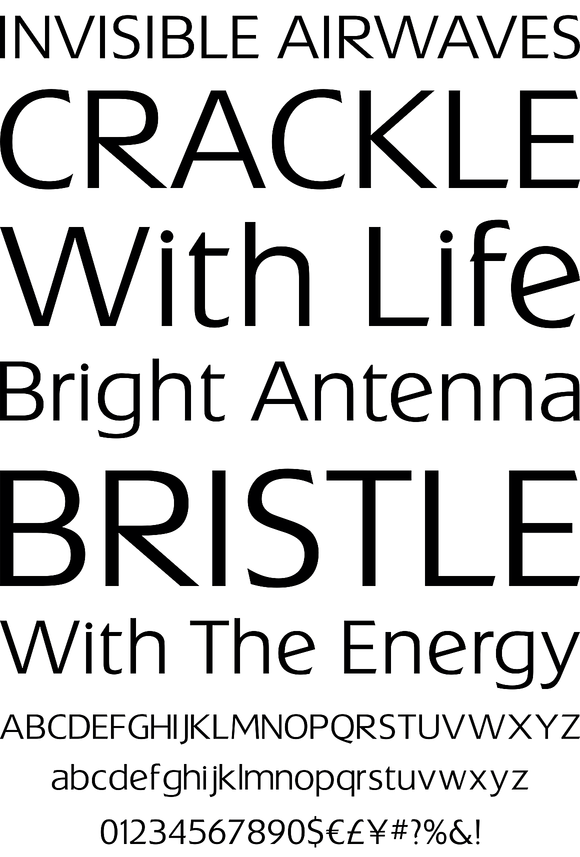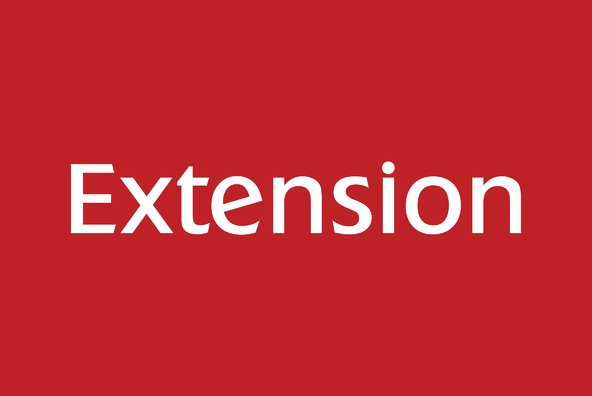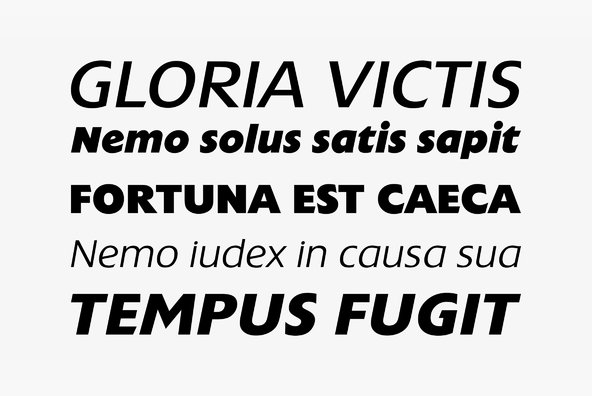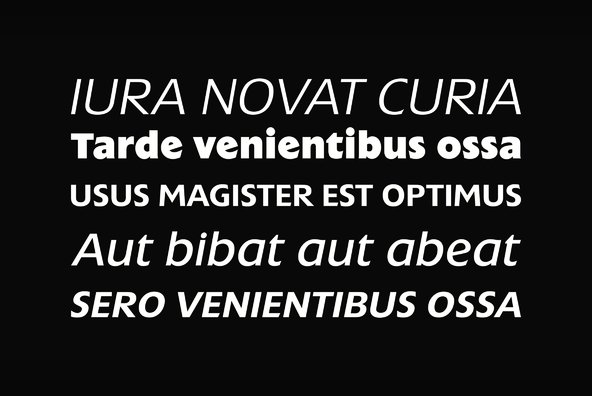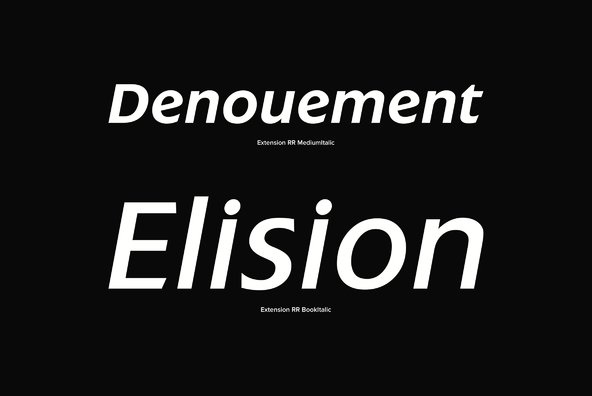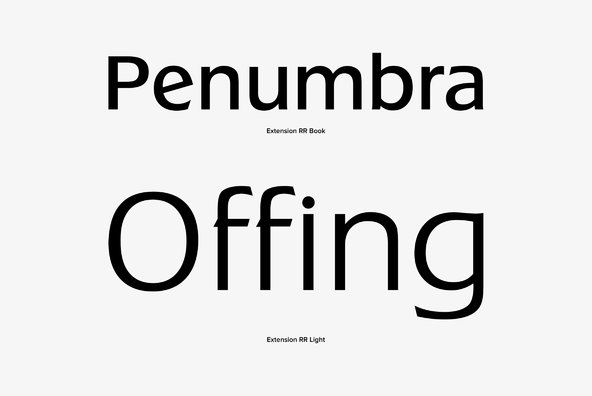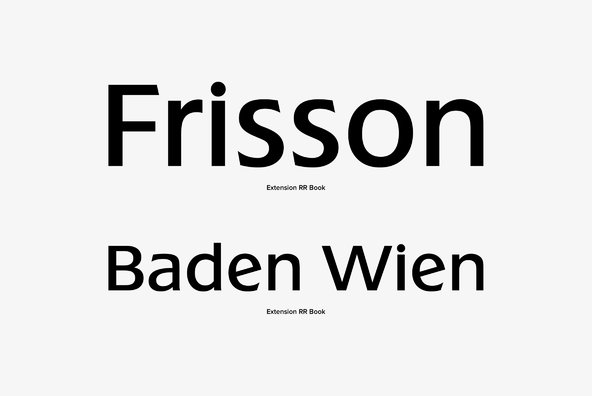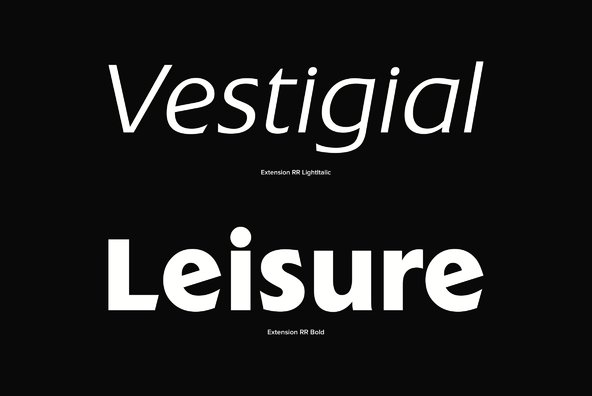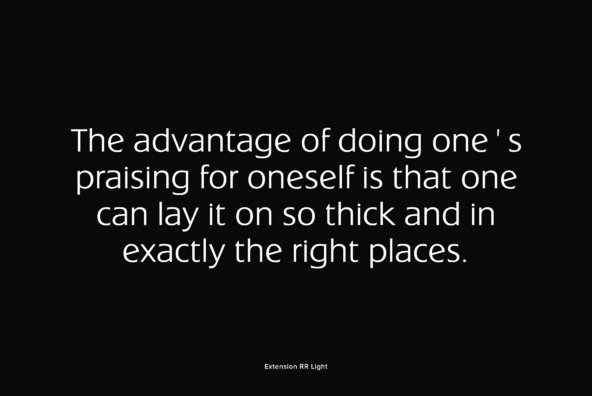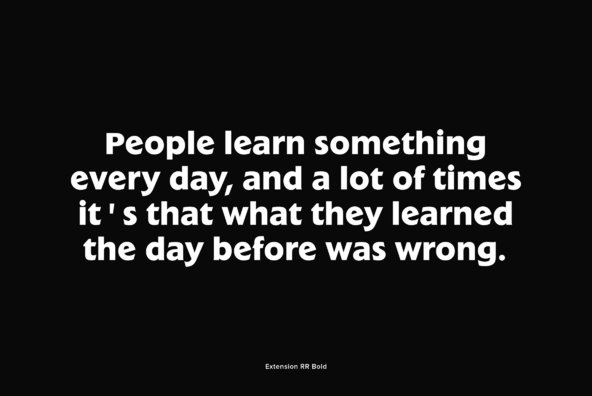
Extension
Designed by Les Usherwood, Extension is a modern sans digitally engineered by Steve Jackaman. Many of the weights and the italics were created after Les death.